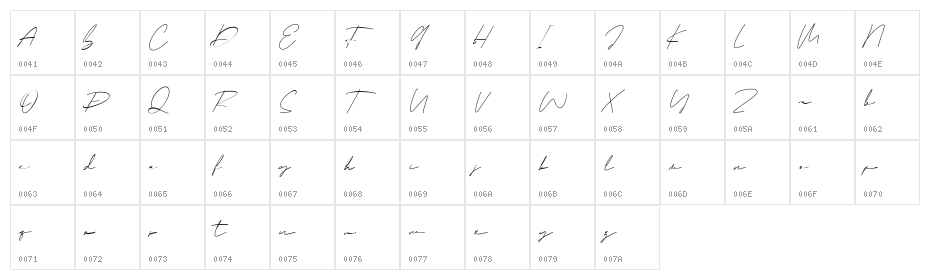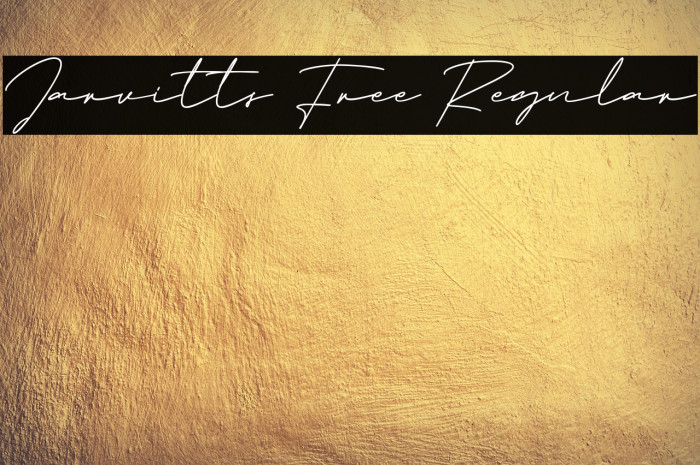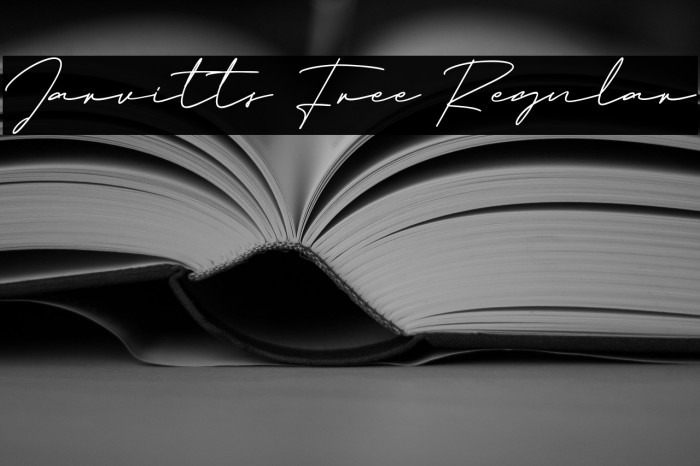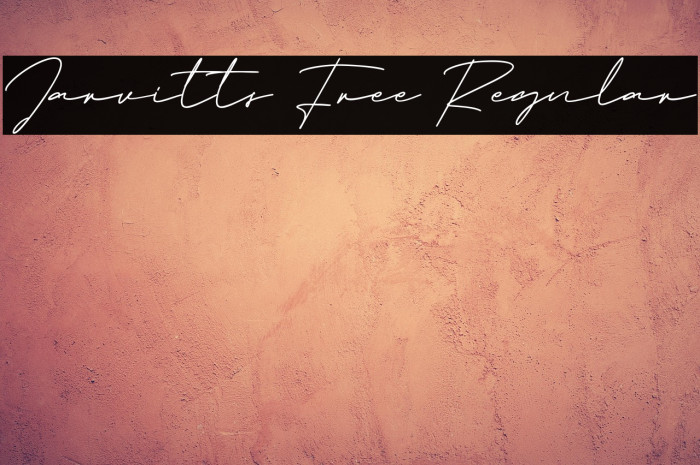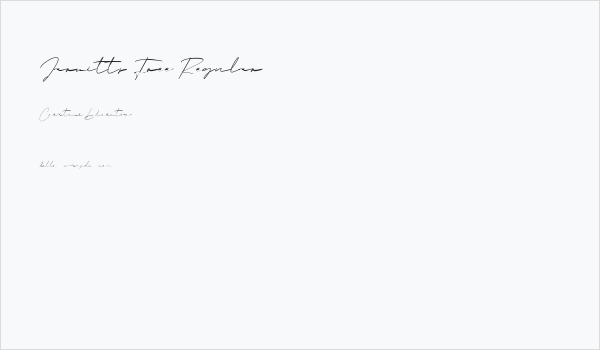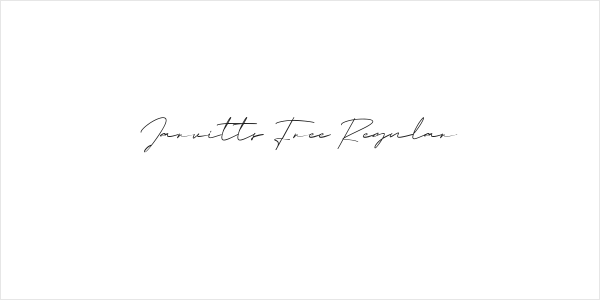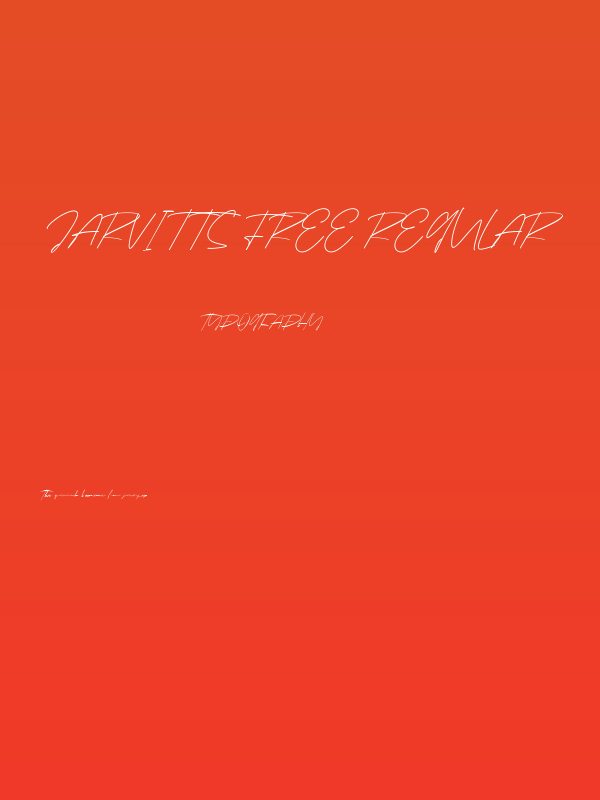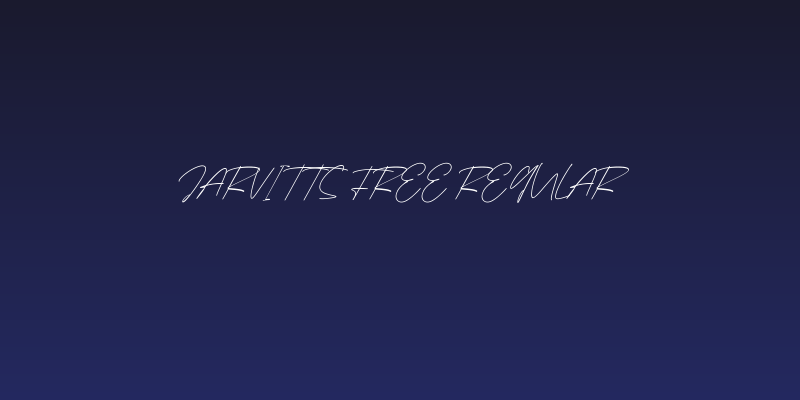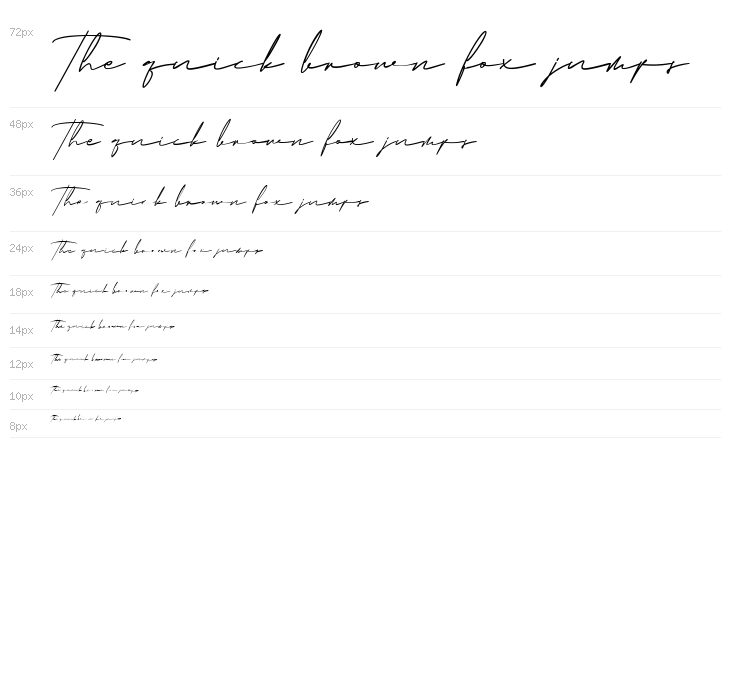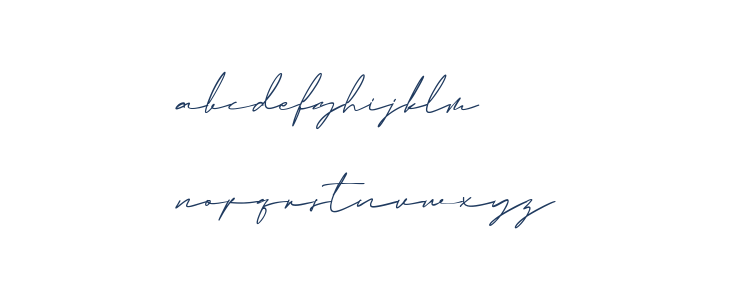
Jarvitts Free Regular Font
Jarvitts Free Regular Description
This font exhibits a fluid, handwritten style with a modern twist. The characters are elegantly connected, giving it a continuous flow that mimics natural handwriting. The strokes are thin and delicate, adding a sense of sophistication and grace. The uppercase letters are slightly larger, maintaining a consistent height, while the lowercase letters are more varied in their ascenders and descenders, enhancing the handwritten effect. The overall appearance is airy and light, making it suitable for designs that require a personal touch.
| Proposed Projects | Ideal for wedding invitations, personal branding, greeting cards, and artistic projects that require a personal, elegant touch. |